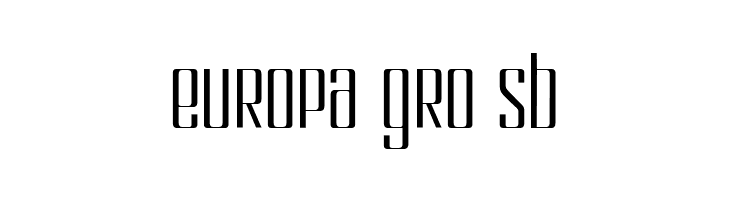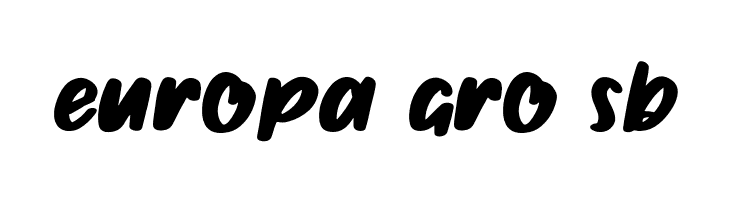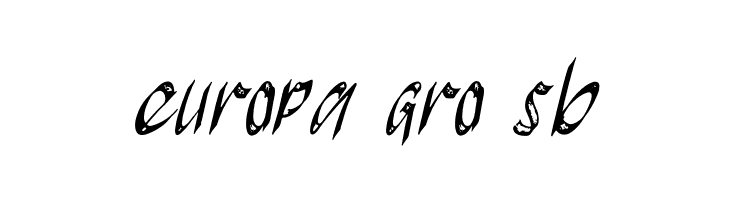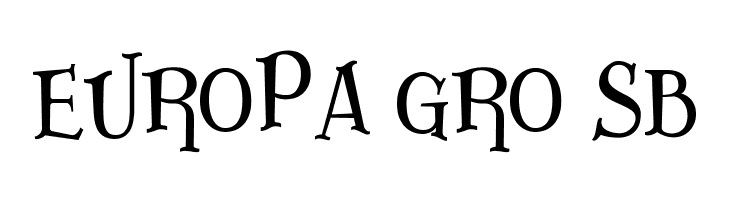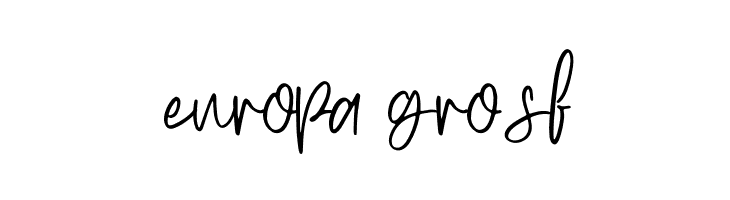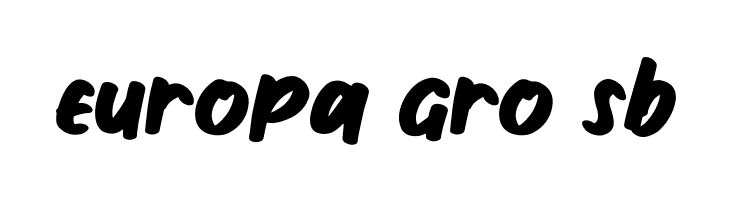
A bold, expressive handwritten font with thick, flowing strokes.
A modern, handwritten font with a casual and flowing style.
A tall, narrow font with minimal serifs and a modern, elegant style.
A bold, handwritten-style font with thick strokes and a dynamic, casual feel.
A dynamic, edgy font with sharp, angular strokes and a distressed texture.
A bold, block-like font with rounded edges, perfect for impactful designs.
A medieval-inspired font with angular serifs and a hand-crafted look.
A lively, handwritten font with flowing, cursive-like strokes.
A bold, dynamic script font with a playful, handwritten style.
A cursive, handwritten-style font with elegant, flowing characters.